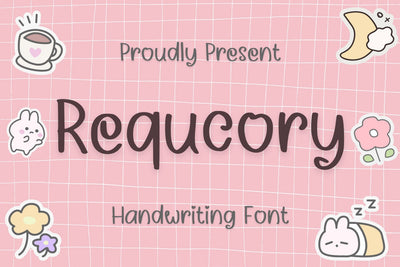
Requcory Handwriting Font
Requcory is a cute and lovely handwritten font that can be used for all chalkboard quotes or non-formal invitation! Its authentic look will add a realistic feel to your designs.